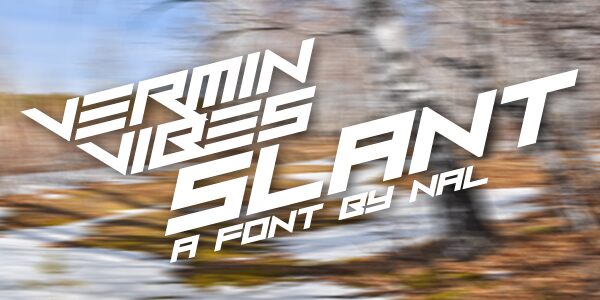
Vermin Vibes Slant by Andrew McCluskey is a free techno display font with a hard forward lean and an assertive, machine-cut silhouette. Broad letters, sharp diagonal slices, and alternating solid and open sections create a fast, fractured pattern, with wide joins and pointed gaps keeping the texture tense rather than smooth.
Motorsport branding is its most convincing setting, since the low, thrusting forms suggest speed before the words are read. The same angular construction suits esports graphics, electronic music covers, and streetwear merchandise, linking those applications through a shared taste for compressed motion and engineered surfaces.